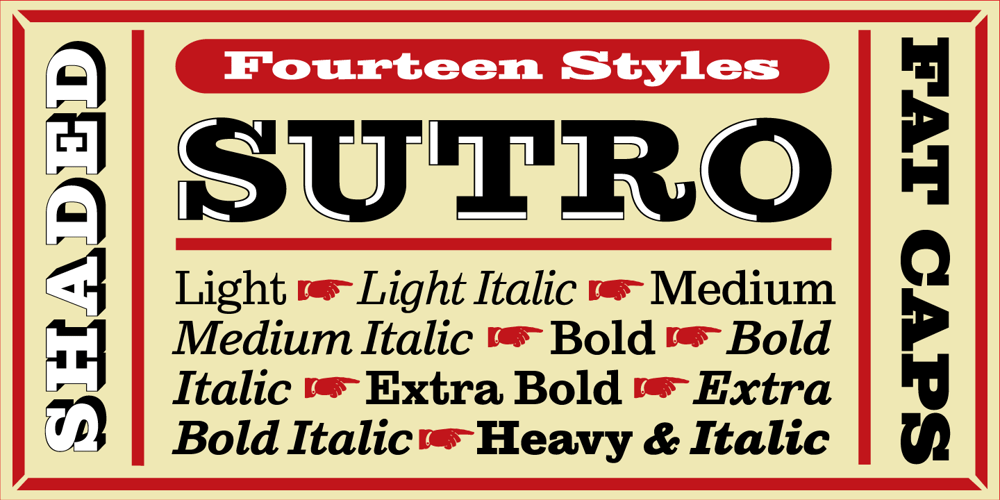
Sutro Font Family was designed by Jim Parkinson and published by Parkinson. Sutro contains 14 styles and family package options. My affection for Slab Serifs began in the early 1960s in Kansas City with Rob Roy Kelly and his fabulous collection of wood type. In the 1970s tried to re-create a Nebiolo Egiziano for Roger Black. Again for Roger, in the 1980s I designed a Slab Serif logo for Newsweek Magazine. Finally, in 2003, designed the Sutro Family. There were things I didn’t like about it, so when I did Version 2 for Open Type, I changed it around a little, making it a much nicer Sutro.